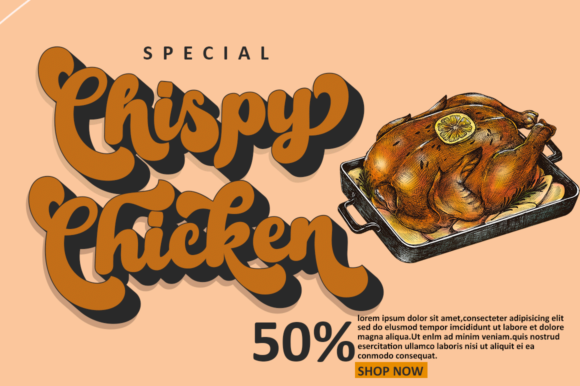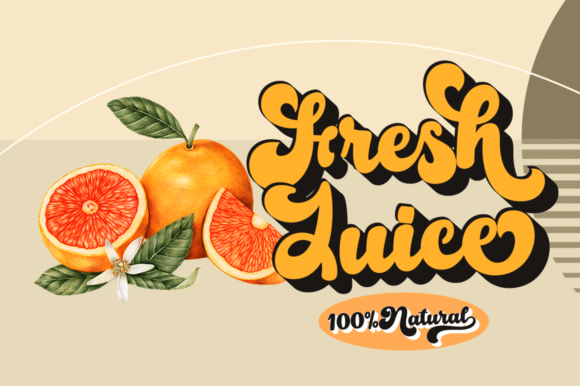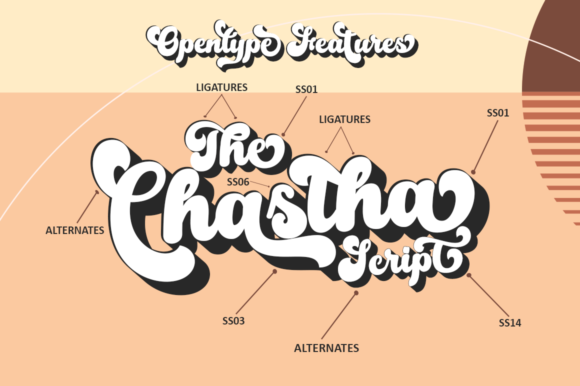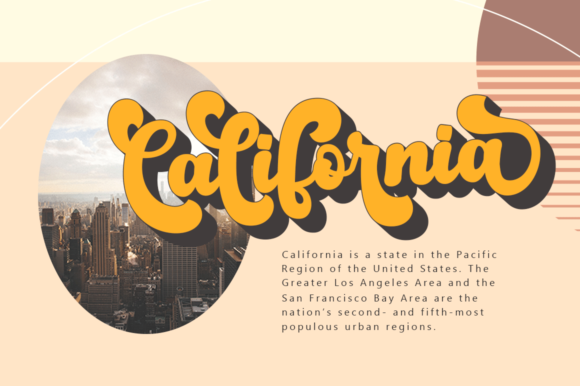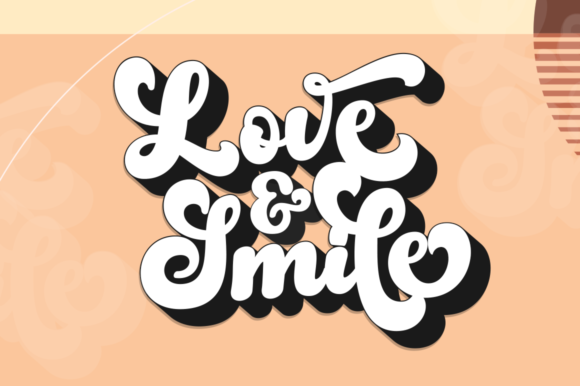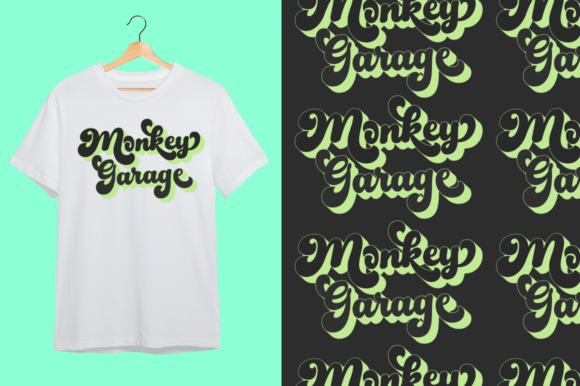
The Chastha Font
About The Chastha Font
The Chastha is a retro and bold handwritten font, crafted to give your headlines and logotype projects a stylish touch. This font reads as strong, confident, and dynamic and can add tons of nostalgic character to your designs. The Chastha is PUA encoded which means you can access all glyphs and swashes with ease!